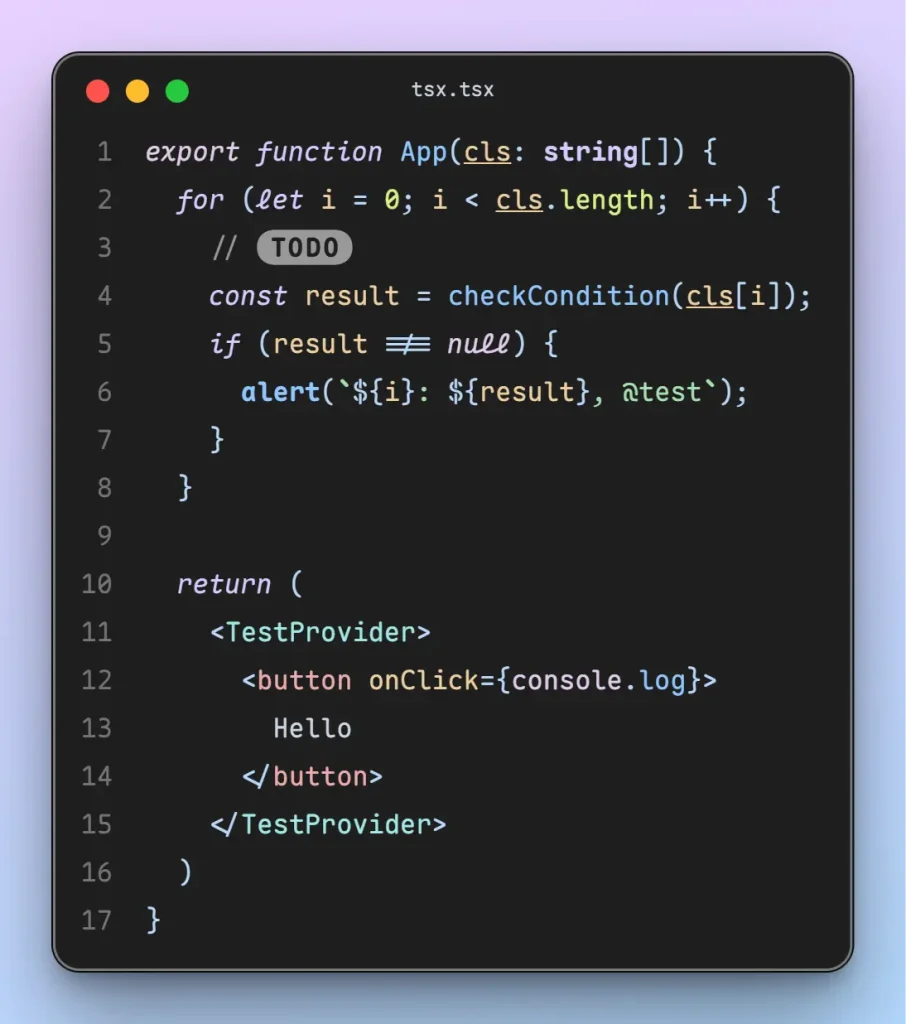
Maple Mono is an open-source monospace font focused on smoothing your coding flow. It was created to enhance the working experience for developers and designers.
The font addresses common issues of code readability and visual strain through its clean design and intelligent features.
- Variable: Provides infinity font weights with fine-grained italic glyphs.
- Smooth: Features round corners, brand-new glyphs for specific characters, and cursive italics.
- Useful: Offers a large amount of smart ligatures for cleaner code representation.
- Icon Support: Includes first-class Nerd-Font support to make your terminal more vivid.
- Customizable: You can enable or disable font features to build your own version.
- Code Editing: Install in your code editor to make your daily programming work more comfortable and reduce eye fatigue.
- Terminal Setup: Use it in your command-line interface for a more organized and visually appealing workspace with integrated icons.
- Design Mockups: Incorporate it into UI/UX designs that display code to give them a polished and professional look.
- Technical Writing: Apply it to code blocks in documentation or tutorials for improved clarity and readability.